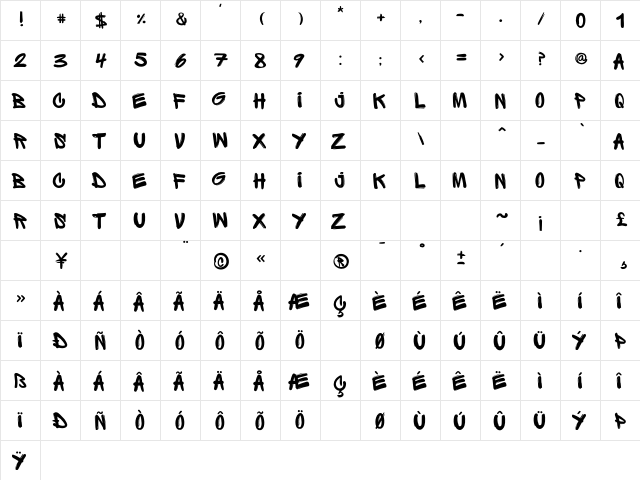
Sprite Graffiti Regular
Design Context for Sprite Graffiti Typeface
Sprite Graffiti is a composed and adaptable typeface that performs quietly and consistently across a wide range of design contexts.